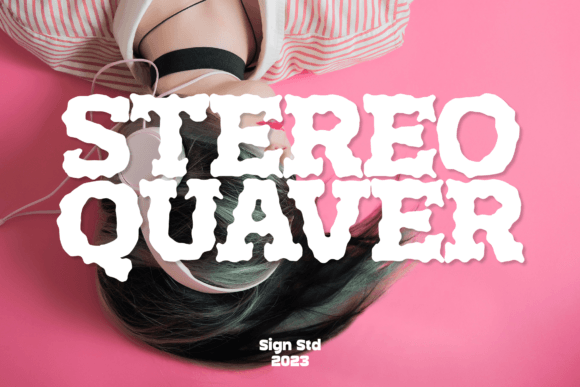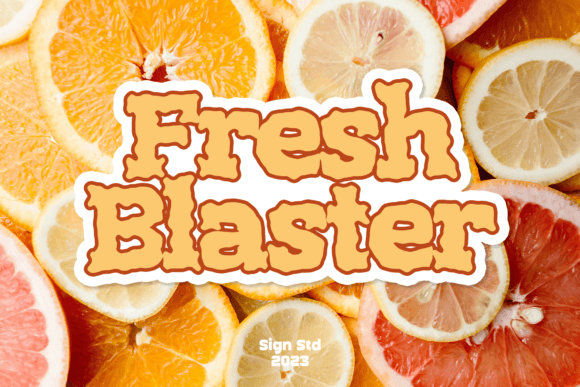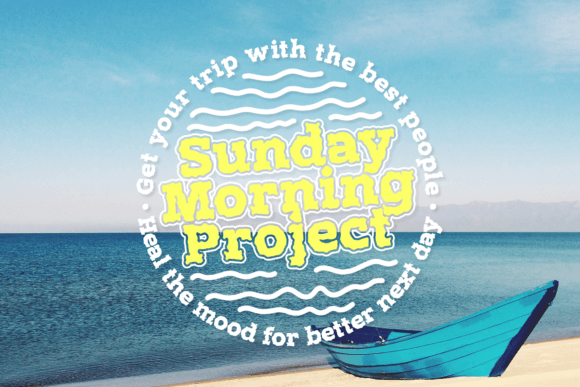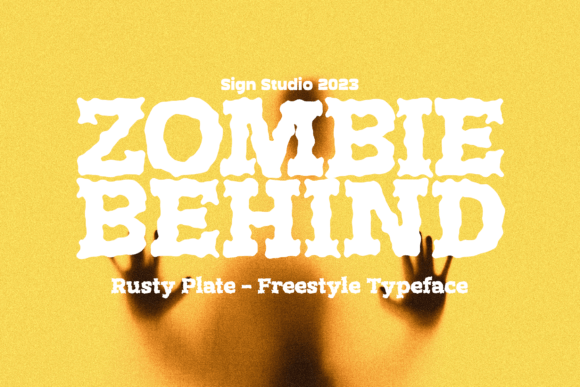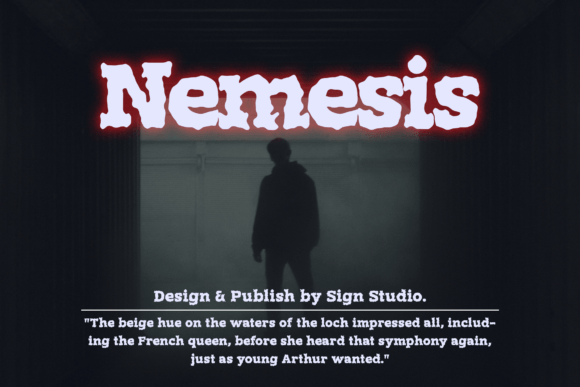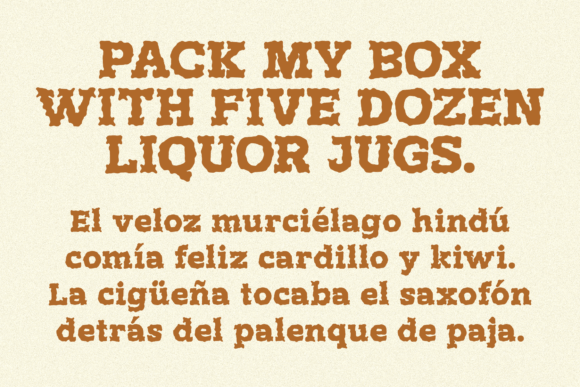
Introduction to Rusty Plate Font
Remember the moment when you stumbled upon that perfect design element that made your creative project pop? For designers, these moments are what make all the hard work worth it. The right font can elevate a design from ordinary to extraordinary, and that’s exactly what the Rusty Plate Font does. With its unique blend of natural and creative elements, this font is perfect for making a dramatic impression on posters, brochures, apparel, logotypes, and many other types of print.
As a high-quality design resource, the Rusty Plate Font is a valuable addition to any designer’s toolkit. Its transparent background and PUA encoding make it easy to access and customize, allowing you to create truly unique designs that stand out from the crowd.
Key Features of Rusty Plate Font
- Rusty Plate Font is a high-quality design resource ideal for creative projects.
- Comes with a transparent background, making it easy to customize and integrate into various designs.
- Rusty Plate Font is available in a single weight, making it ideal for projects where a distressed, vintage feel is desired.
- The font features a unique, hand-drawn design with subtle imperfections, giving it a truly authentic look.
Honest Review: Rusty Plate Font
As a designer, I’m always on the lookout for unique and high-quality design resources to elevate my creative projects. The Rusty Plate Font is one such resource that caught my attention, and I’m excited to share my honest review with you.
Here are some things that work well with this font:
- ✨ The font has a beautiful, distressed texture that adds a lot of character to any design.
- ✨ The high-quality design ensures that the font looks great even at larger sizes.
- ✨ The transparent background option is a great feature, allowing for seamless integration with other design elements.
- ⚠️ The font is not as versatile as some other fonts, and may not work well in all design contexts.
Overall, I’m impressed with the Rusty Plate Font. It’s a great addition to any design resource library, and can add a unique touch to a variety of creative projects. If you’re looking for a high-quality, free font with a lot of character, the Rusty Plate Font is definitely worth checking out.
Tips for Getting the Most Out of Rusty Plate Font
For optimal results, use the Rusty Plate Font on a dark background to make the text stand out. You can also experiment with different font sizes and styles to create a unique look.
Common Use Cases for Rusty Plate Font
The Rusty Plate Font is perfect for creating eye-catching headings, titles, and captions for your design projects. It’s also great for adding a touch of industrial chic to your designs.